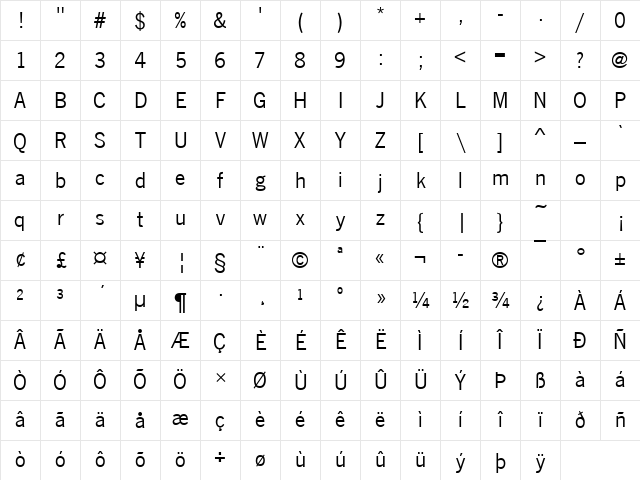
NewsGotT Regular
Complete NewsGotT Regular glyph index. Displaying only characters natively supported by NewsGotT Regular font.
Design Context for NewsGotT
NewsGotT is a composed and adaptable typeface that performs quietly and consistently across a wide range of design contexts.